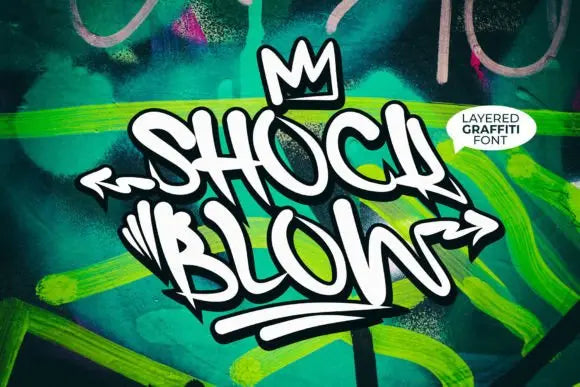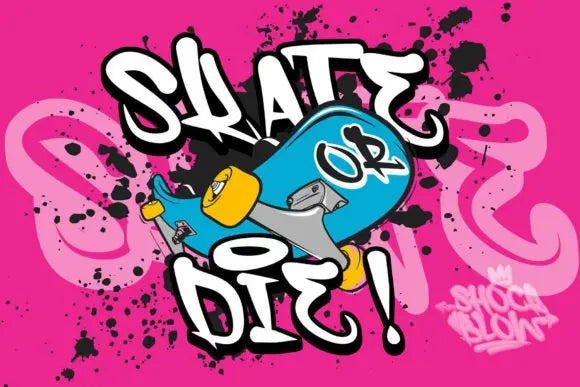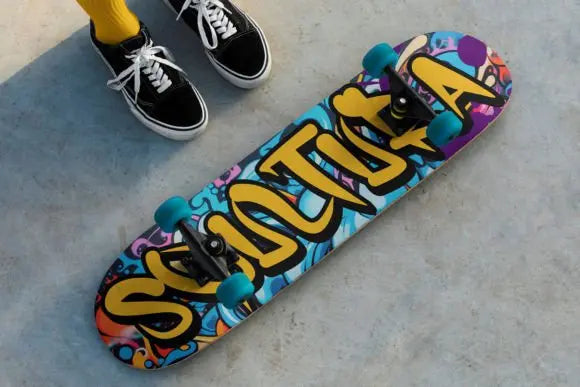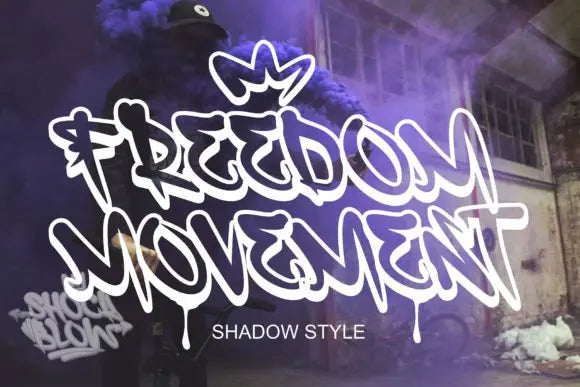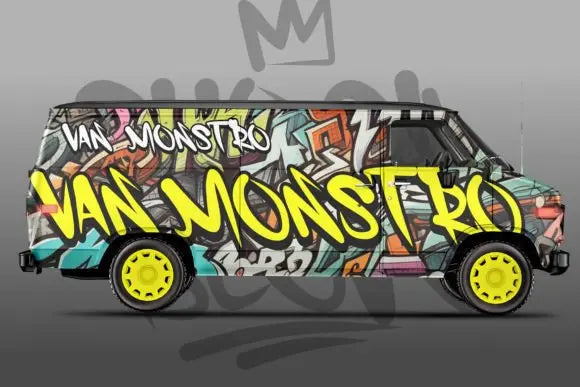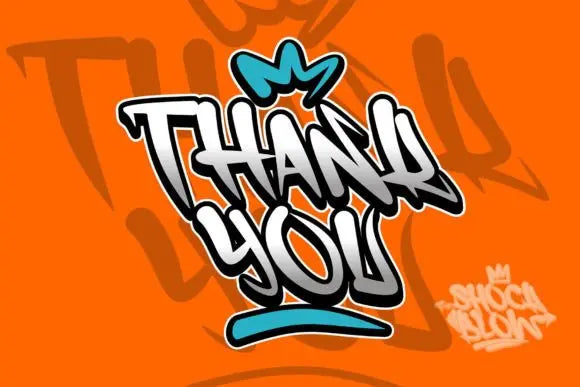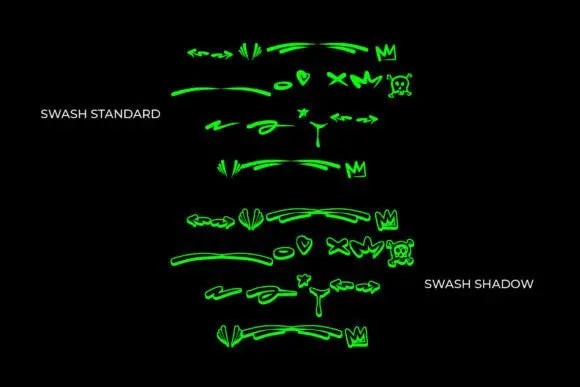
Shock Blow Font
Shock the Scene with Shock Blow Font
Why Shock Blow Font is the Perfect Bold Typeface?
Need a powerful and electrifying font? Shock Blow Font is designed for high-energy branding, esports visuals, and gaming graphics. If you want to make an instant impact, this font ensures your message demands attention.
Shock Blow Font – Energy, Power & Modern Design
With its thick, futuristic strokes and high readability, this font is ideal for tech branding, action-packed posters, and digital marketing. Whether you're working on sports designs, futuristic branding, or animated content, Shock Blow Font delivers maximum visual impact.
Key Features of Shock Blow Font:
✦ Bold & Futuristic Design – Perfect for esports, gaming, and digital media.
✦ Highly Legible – Ensures sharp readability on screens and print.
✦ Great for Logos & Ads – Works well for branding, merchandise, and posters.
Take your designs to the next level with Shock Blow Font – electrify your visuals now!